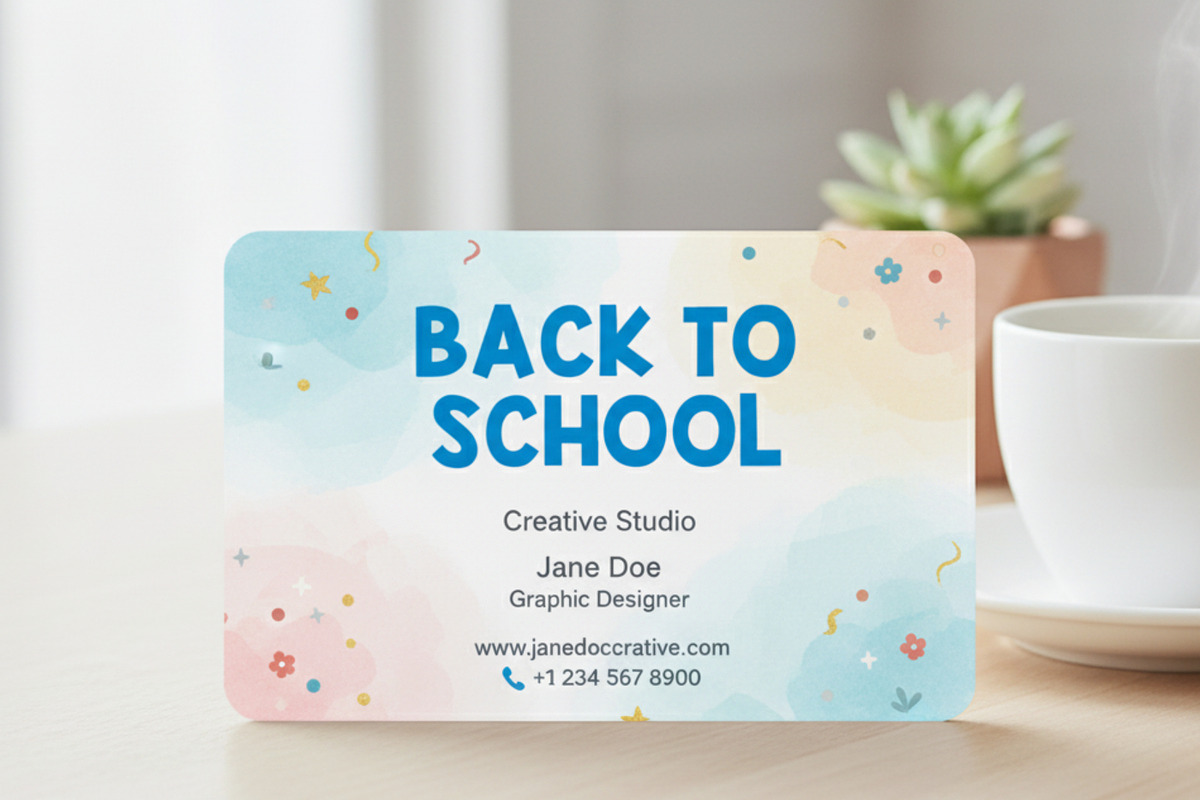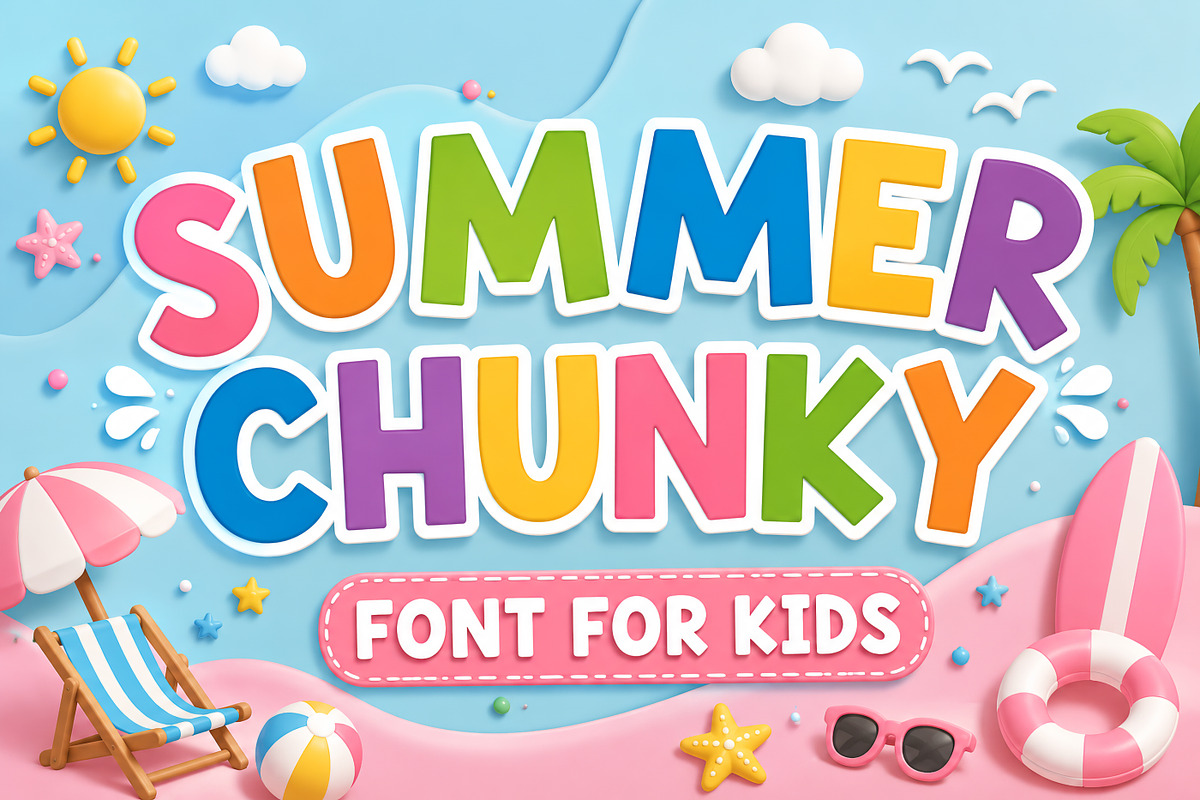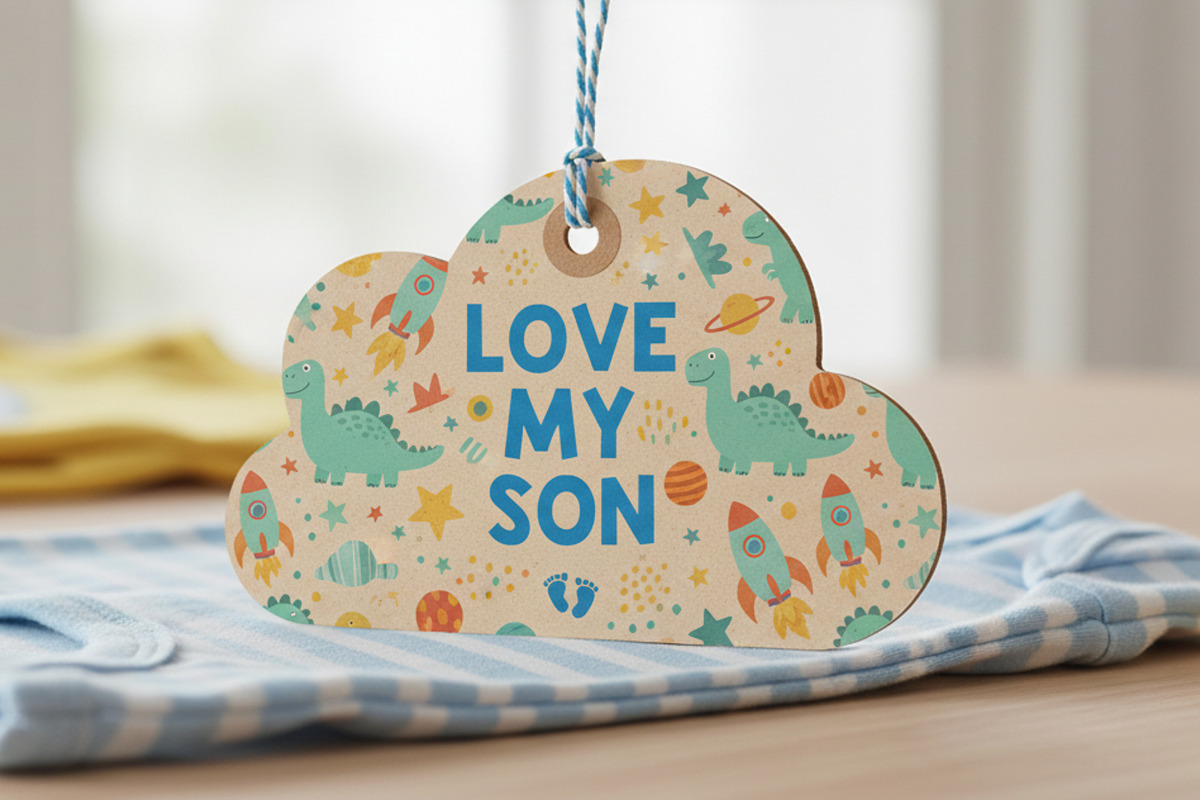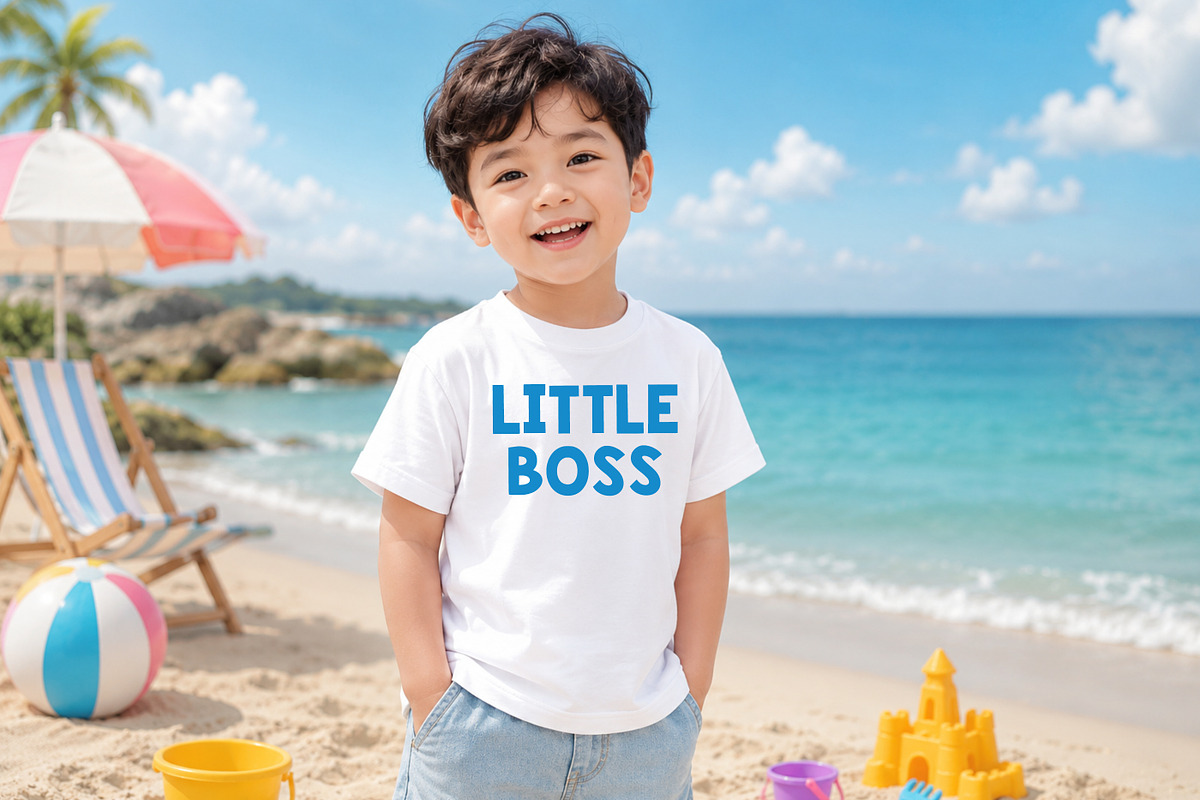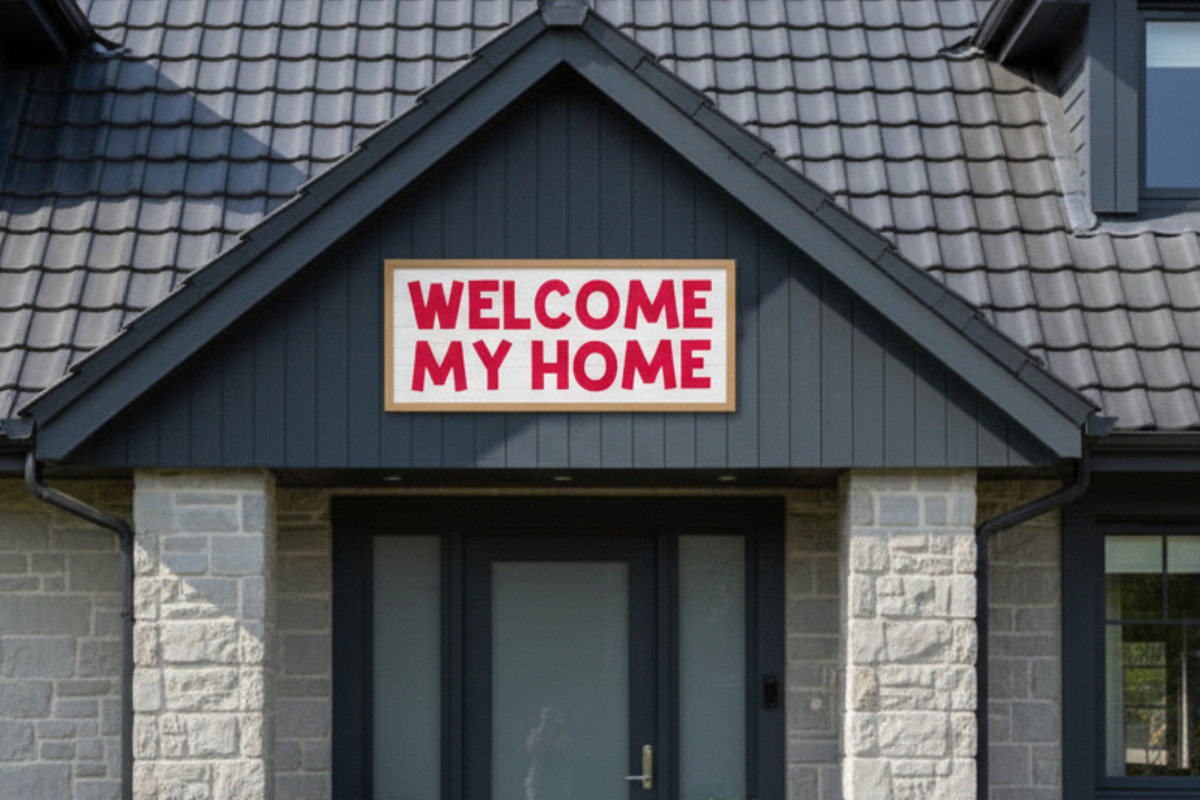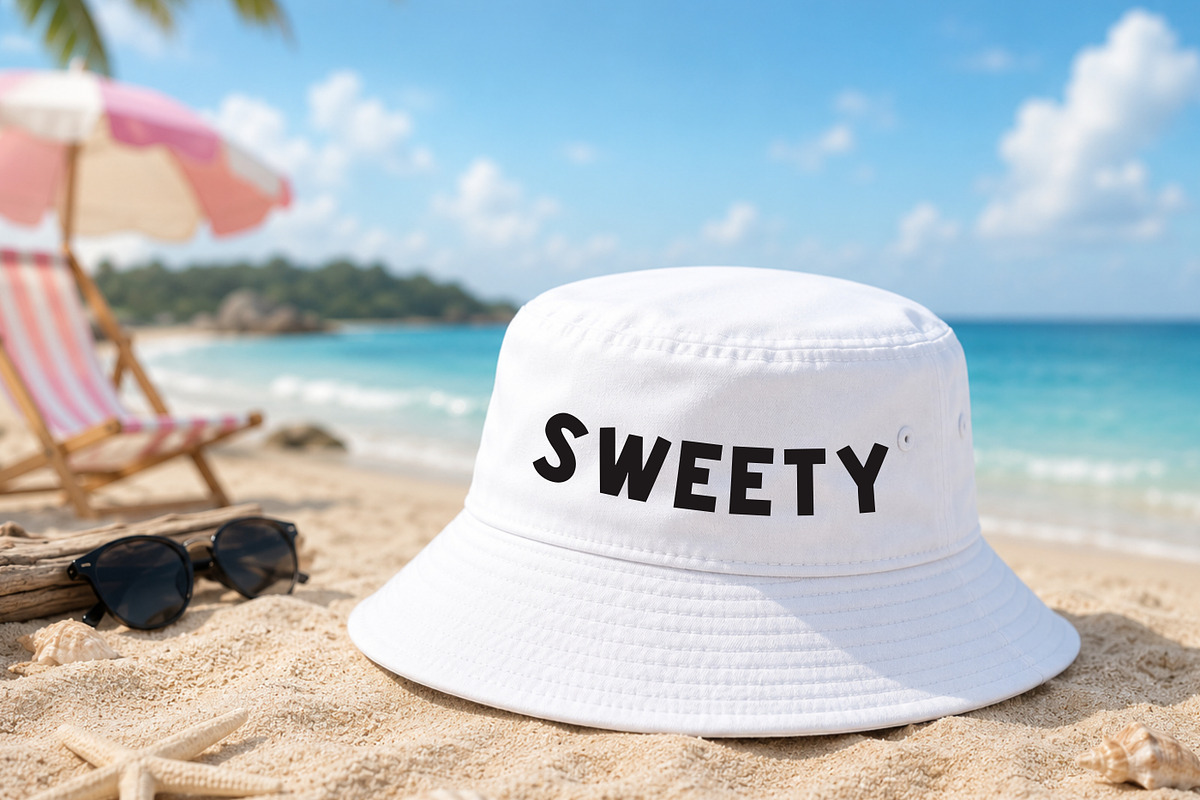
Summer Chunky
Summer Chunky is a fun and bold cartoon font inspired by sunny beach vibes and cheerful kids designs. Featuring chunky letterforms and a lively personality, this font is perfect for adding a playful touch to your creative projects.
Ideal for summer branding, kids products, posters, and eye-catching social media graphics, Summer Chunky makes every design feel bright and joyful.
Bold & chunky style
Fun summer theme
Ideal For:
Kids & children designs
Summer & beach themes
Posters & flyers
Branding & logos
Packaging design
T-shirt design